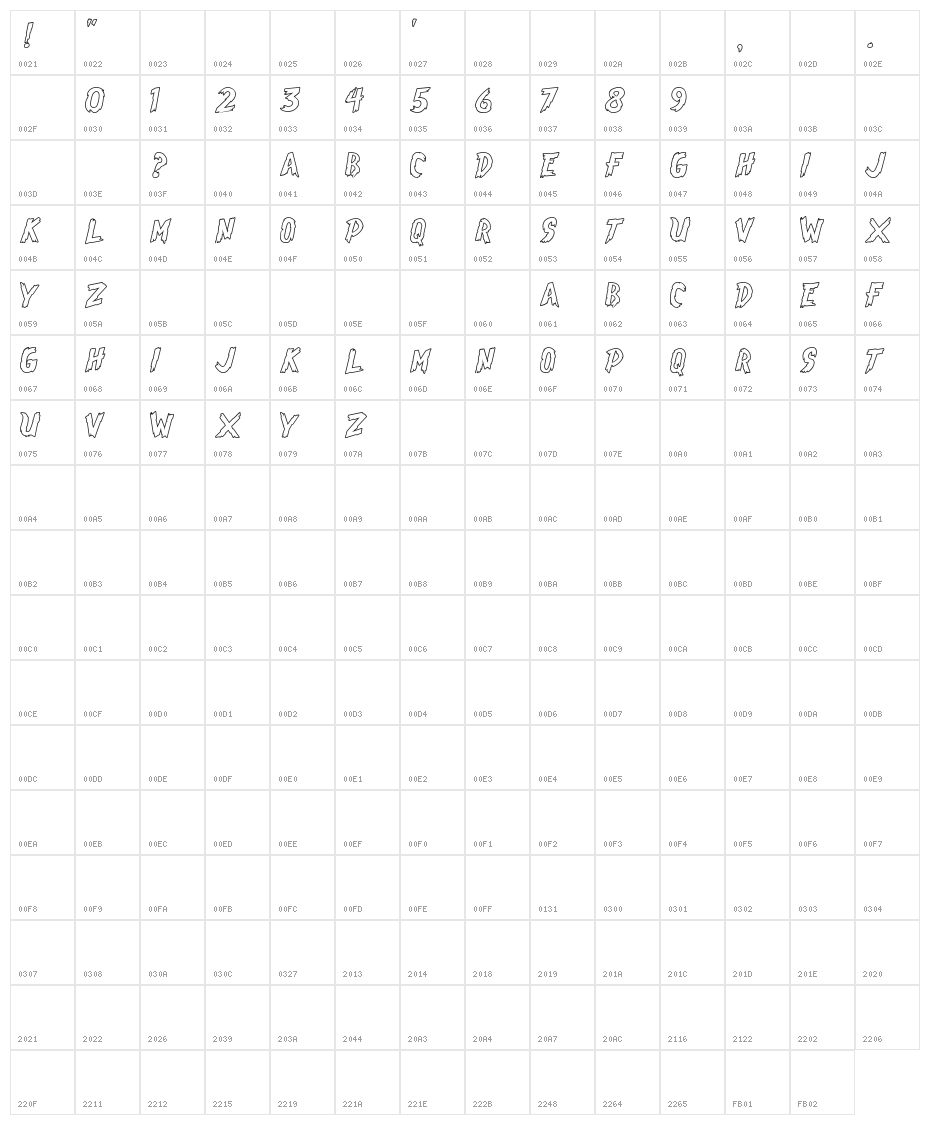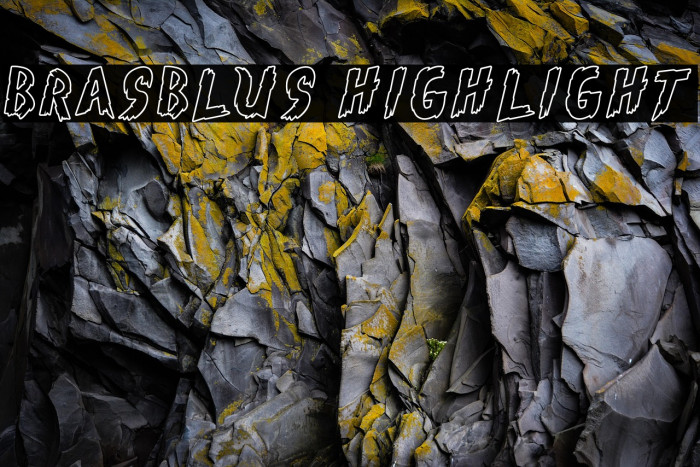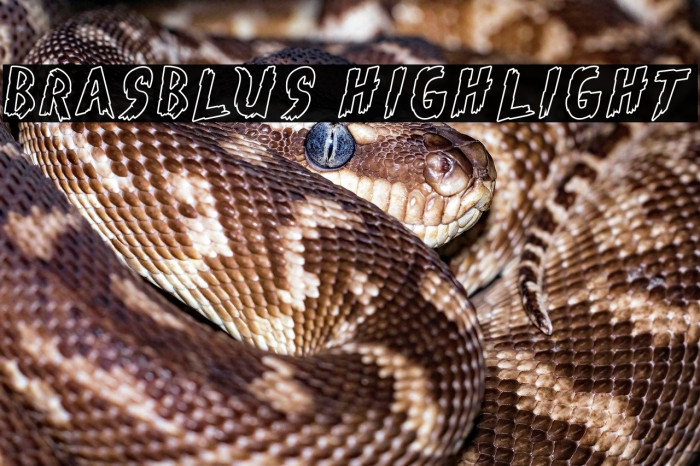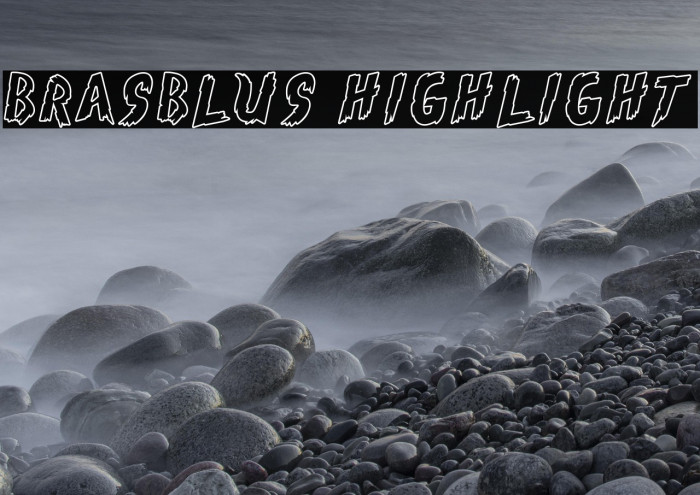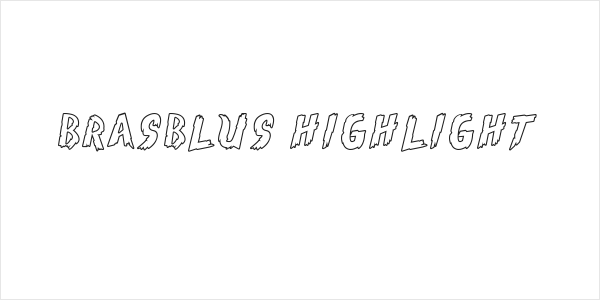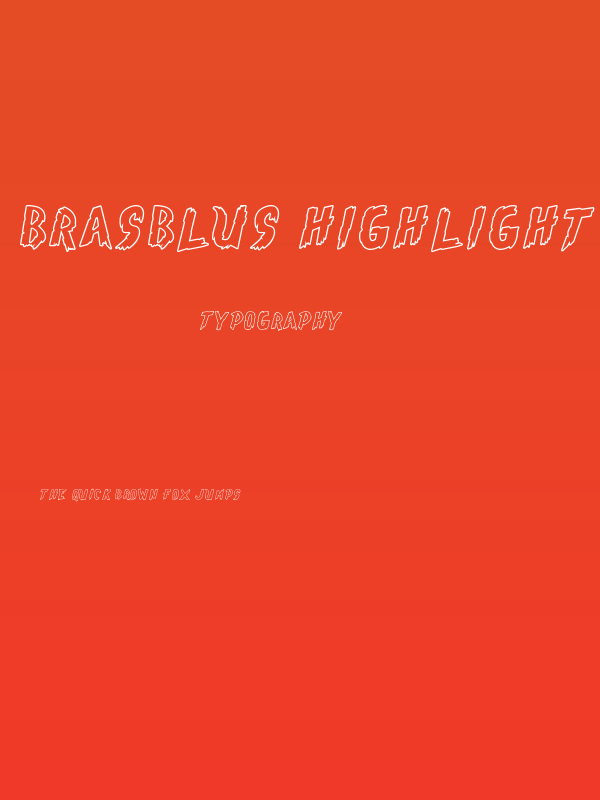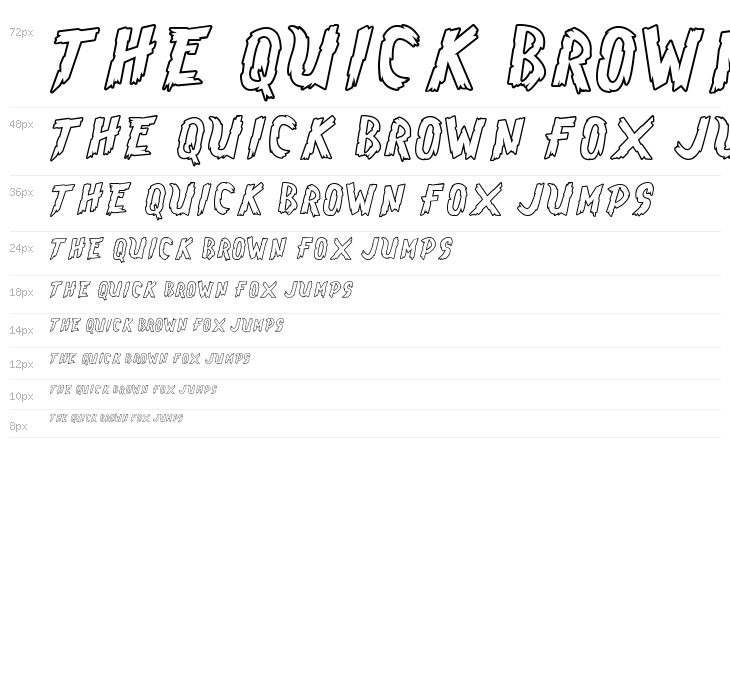
Brasblus Highlight Font
Brasblus Highlight Description
This font features a bold and dynamic style with a jagged, distressed appearance, giving it a sense of energy and movement. The characters are designed with sharp edges and irregular outlines, creating a rugged and edgy look. The uppercase and lowercase letters maintain a consistent style, while the numerals and special characters complement the overall design. This font's unique aesthetic makes it stand out, perfect for projects that require a bold statement or a touch of rebellious flair.